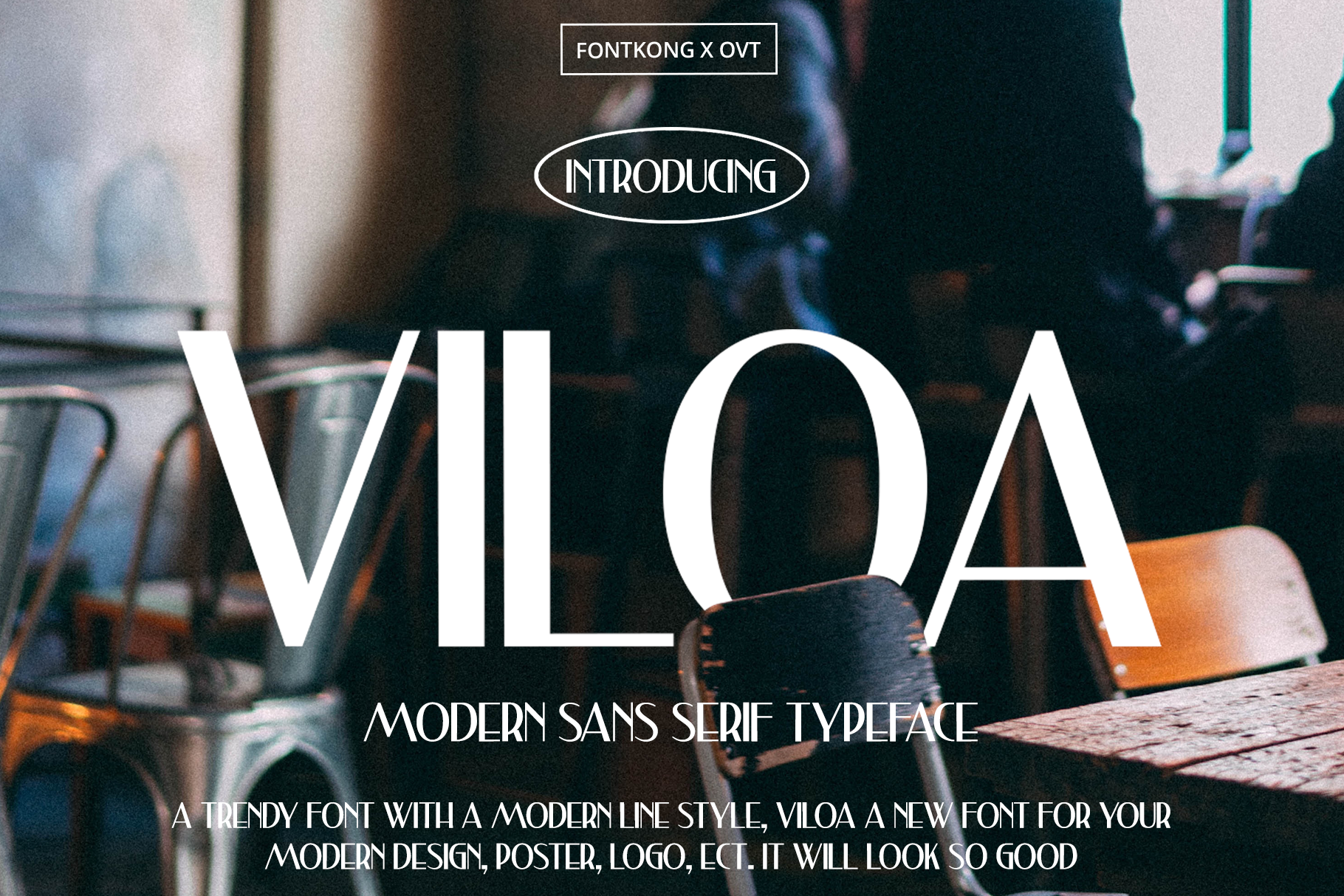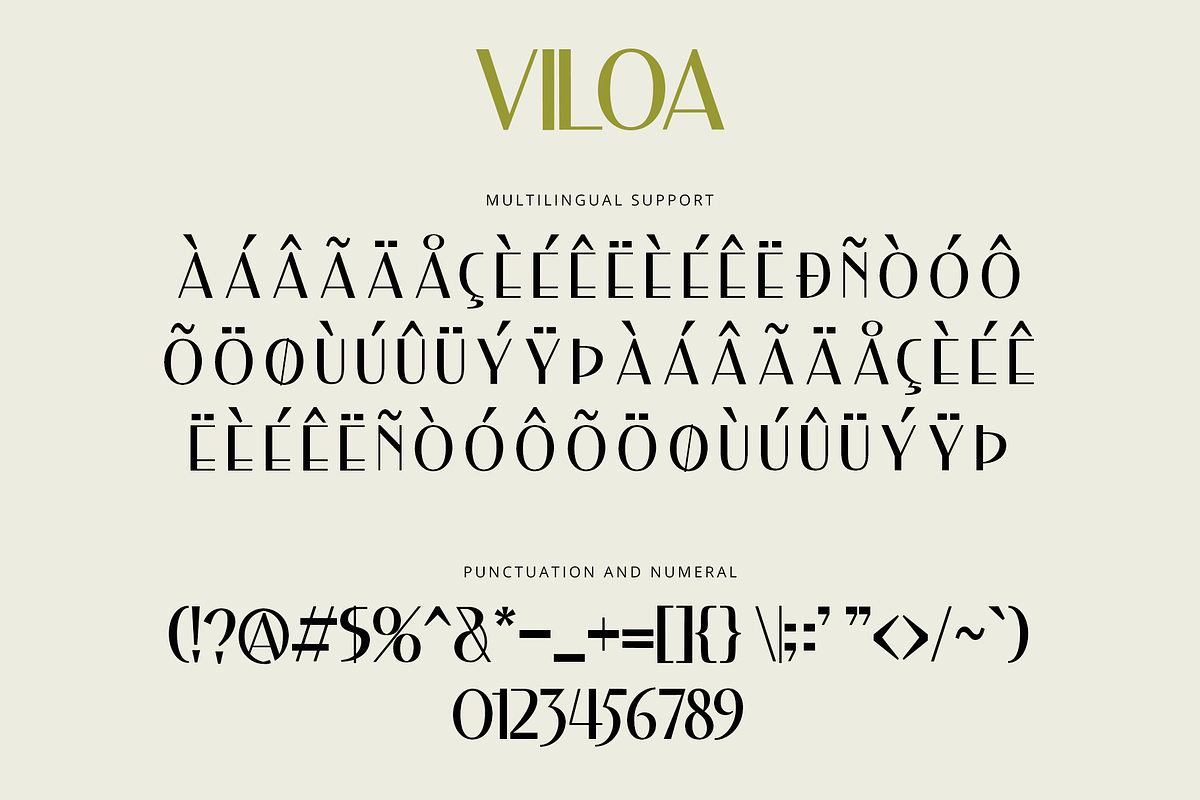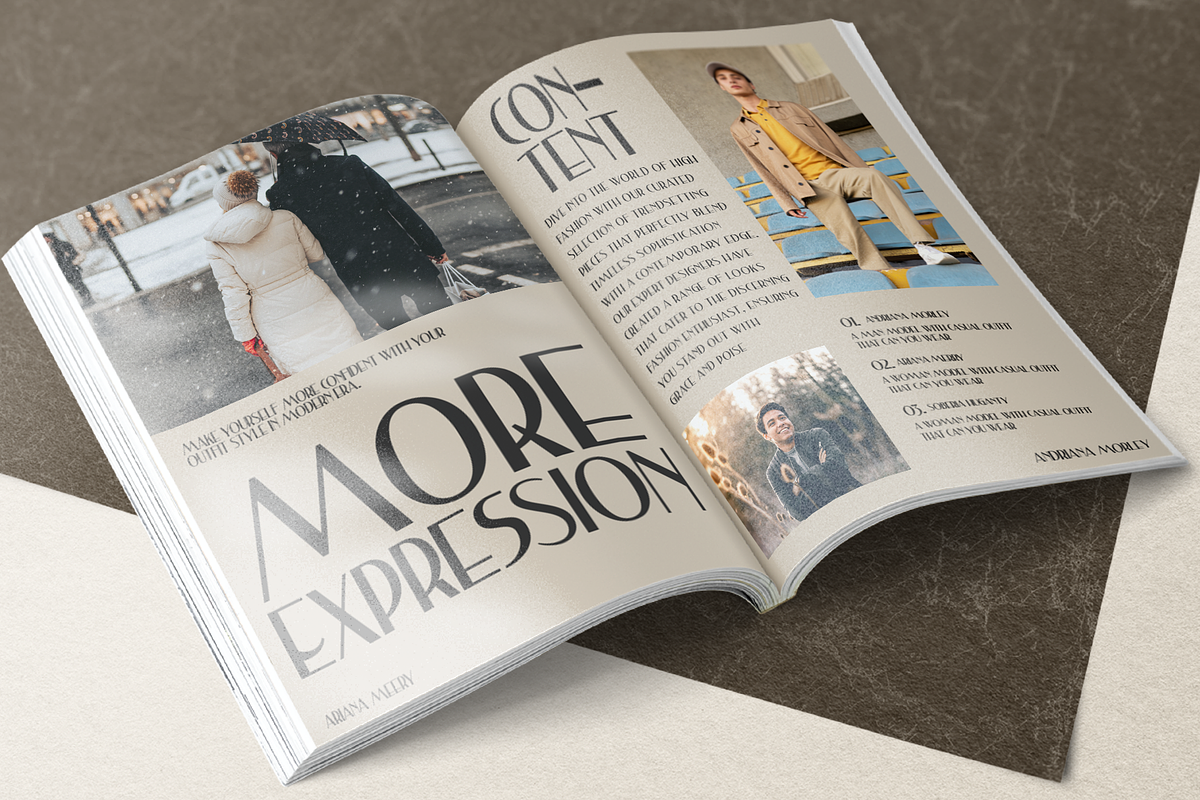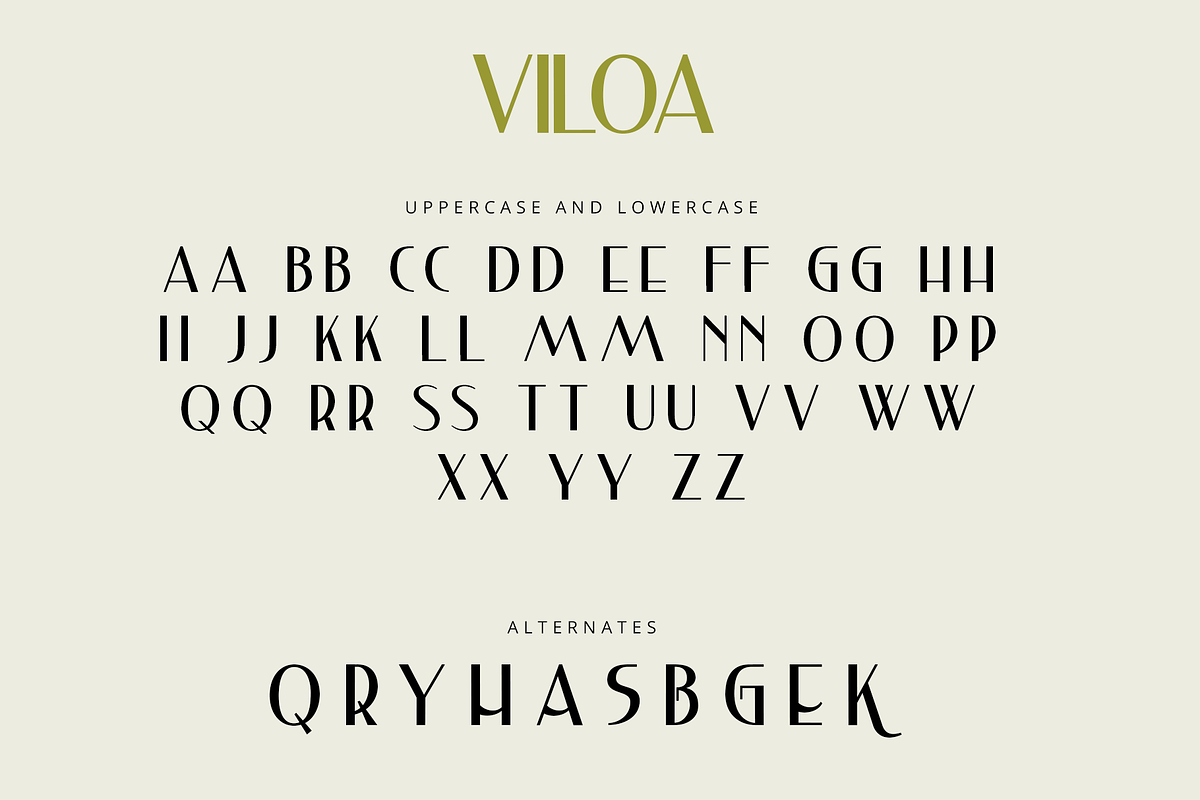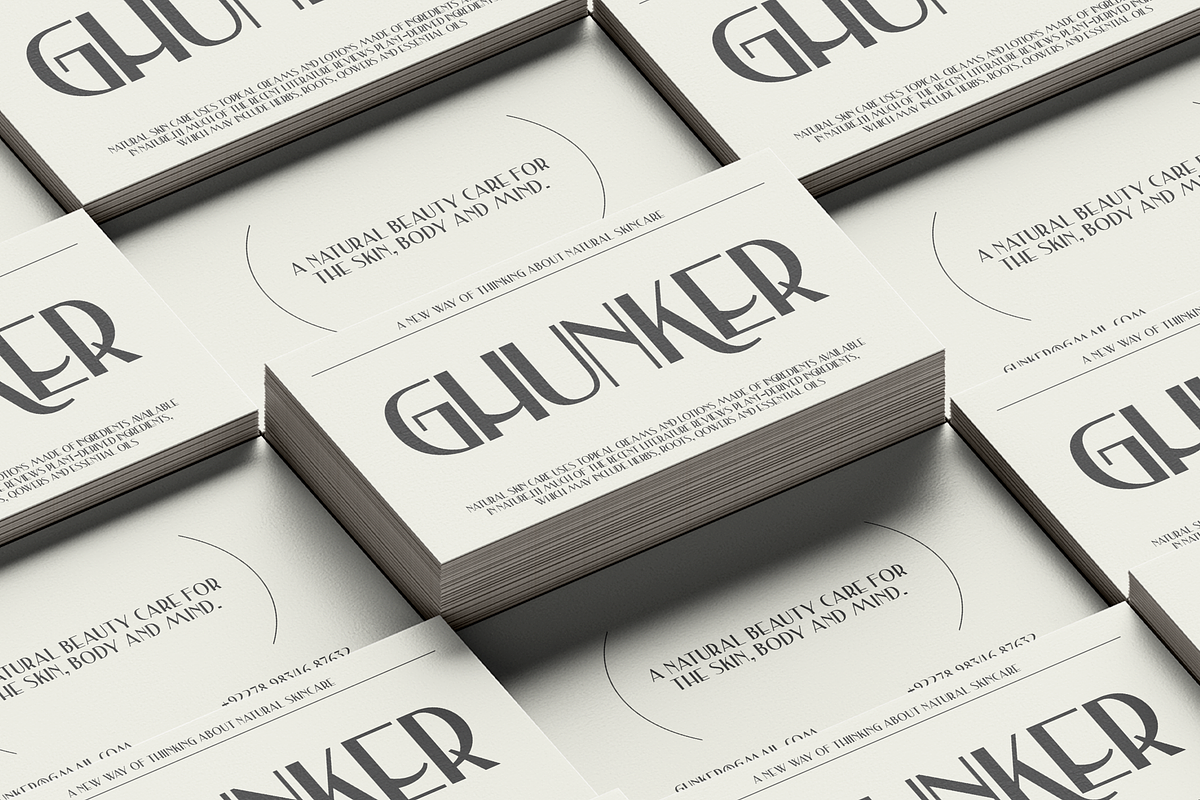
Viloa - A Modern Sans Serif Typeface
Viloa is a sleek and contemporary sans serif typeface designed to bring a touch of modern sophistication to your projects. With its clean lines and minimalist design, Viloa is perfect for corporate branding, website headers, editorial layouts, and digital interfaces. This font's elegant simplicity ensures your message is delivered with clarity and style, making it an ideal choice for a wide range of design applications.
Expertly crafted with attention to detail, Viloa features well-proportioned characters that offer excellent readability and visual appeal. Its versatile design allows it to shine in both large headings and smaller body text, providing consistency and coherence across all your visual communications. Viloa's extensive character set supports multiple languages, making it suitable for global audiences and diverse design contexts.
Elevate your design projects with Viloa, a font that embodies modernity and elegance. Its unique blend of simplicity and sophistication makes it an essential tool for designers aiming to create impactful and polished work. Make a statement with Viloa and experience the beauty of contemporary typography.